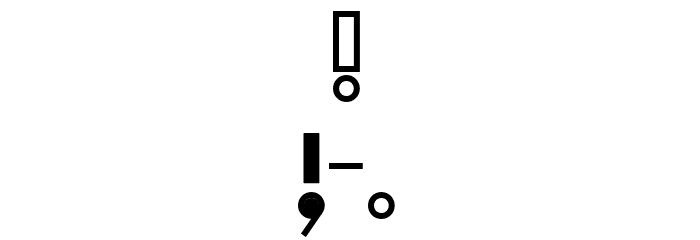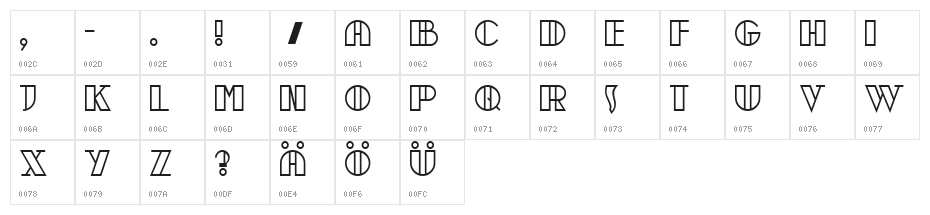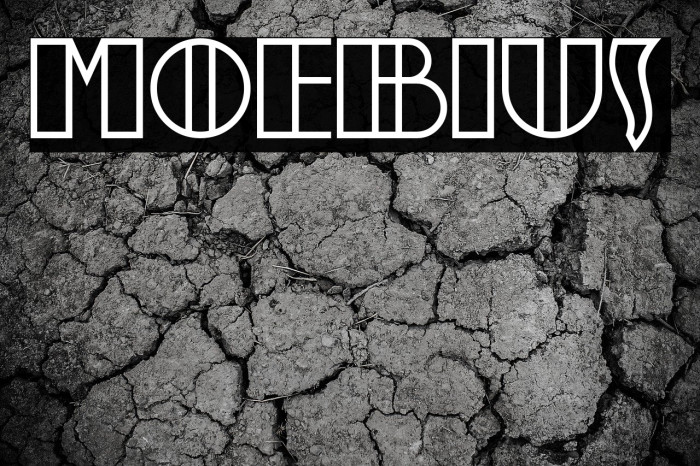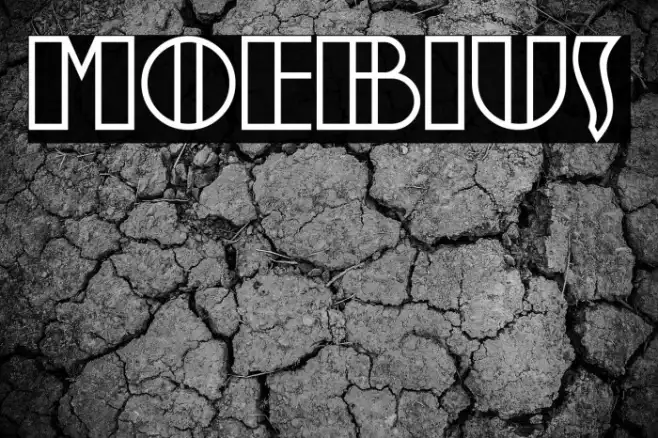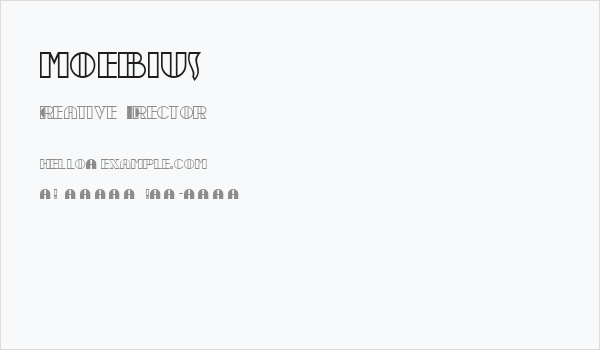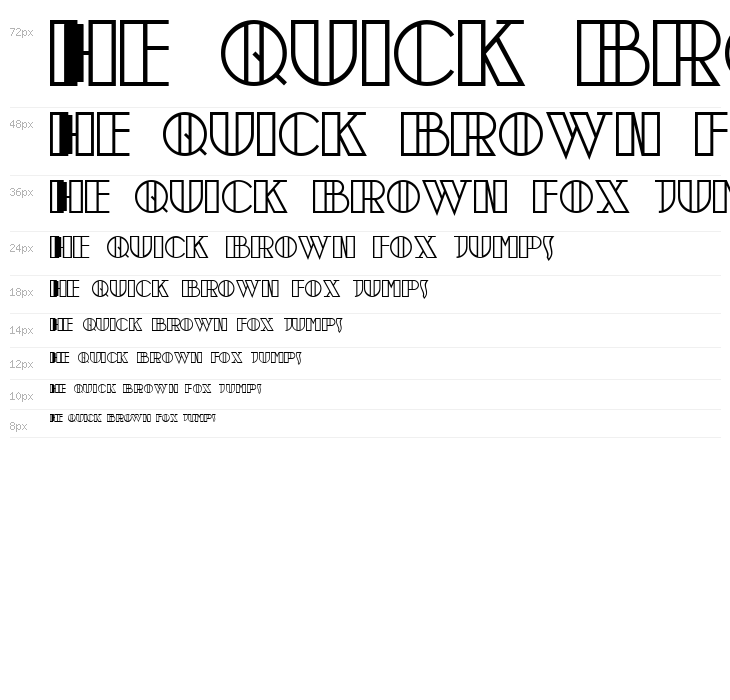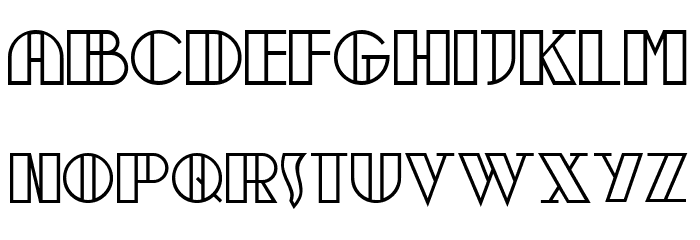
moebius Font
moebius Description
This font features a unique and modern geometric style with a strong emphasis on angular shapes and clean lines. The uppercase letters are characterized by their bold, structured forms, often incorporating sharp angles and distinctive cutouts that create a sense of movement and dynamism. The characters maintain a consistent height, contributing to a uniform appearance across the alphabet. The special characters and numbers follow the same geometric theme, ensuring a cohesive look throughout. This font's design is both eye-catching and versatile, making it suitable for a variety of creative applications.
| Proposed Projects | Ideal for branding, posters, and modern digital designs where a striking and contemporary look is desired. |